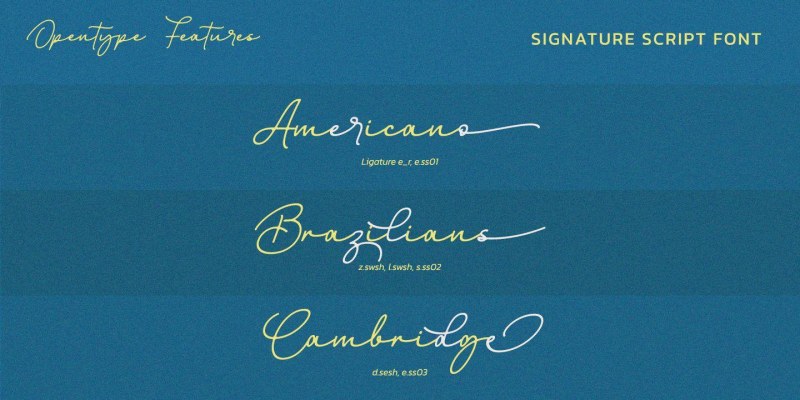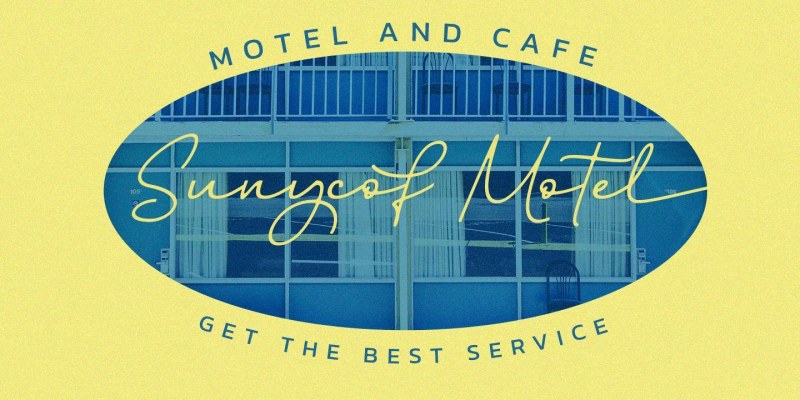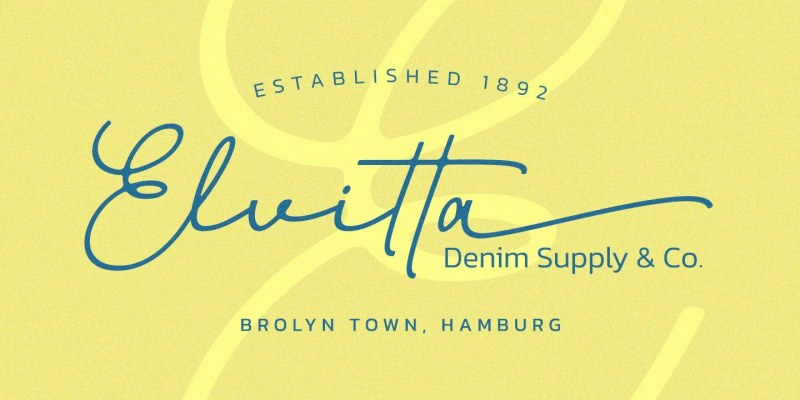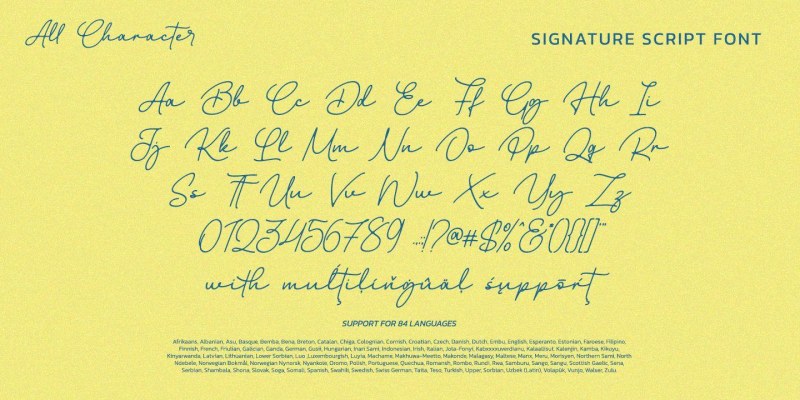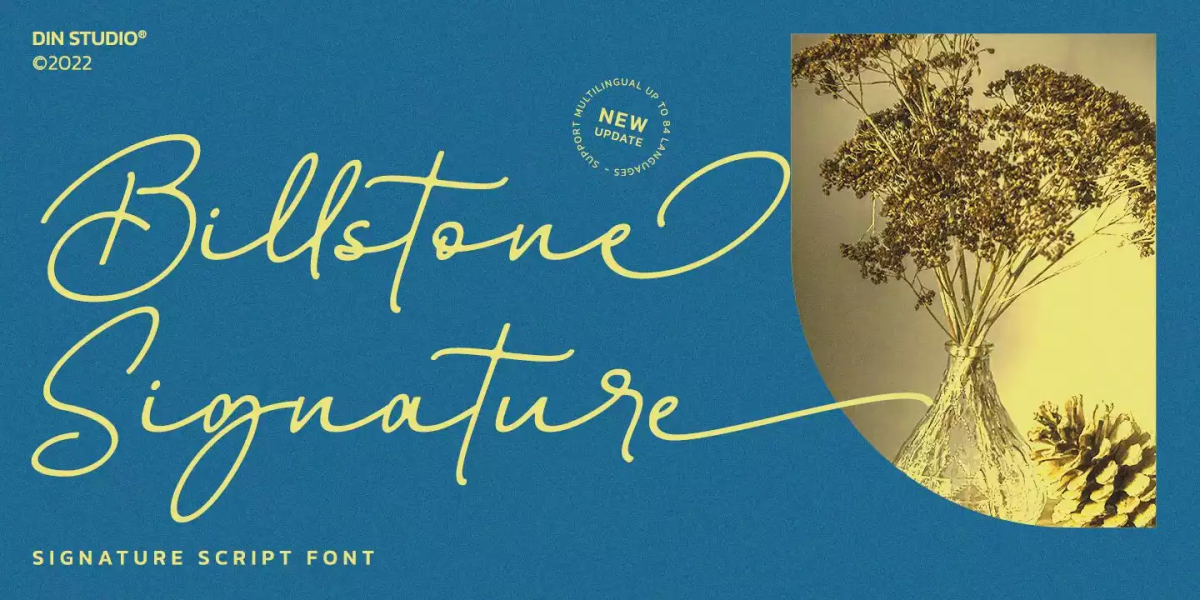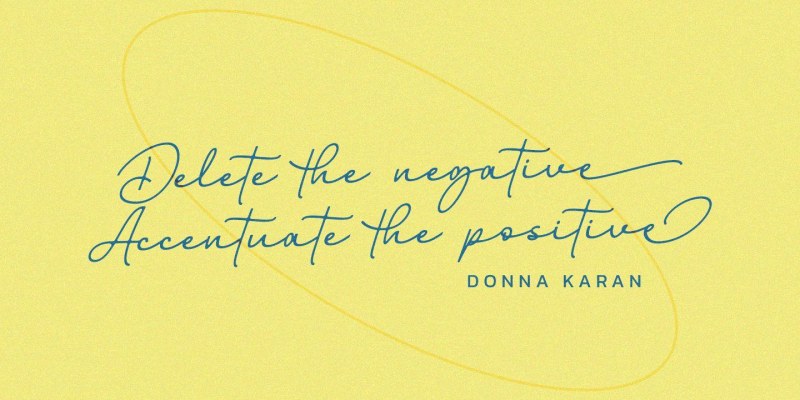
Billstone Signature Font
Billstone Signatture is a soft and sweet signature typeface, with characters dancing along the baseline. Designed primarily as a captivating font that has a casual and e…
Billstone Signatture is a soft and sweet signature typeface, with characters dancing along the baseline. Designed primarily as a captivating font that has a casual and elegant touch. Can be used for various purposes such as logos, wedding invitations, headings, t-shirts, letterheads, signage, labels, news, posters, badges etc
Where Billstone Signature Font works best
Billstone Signature Font brings a personal, handwritten warmth to invitations, menus and place cards.
Craft brands — coffee, cosmetics, bakery — use scripts like Billstone Signature Font for signature-style logos and labels.
Pair Billstone Signature Font with a plain sans for quotes, stories and Pinterest pins that feel handmade.
What is Billstone Signature Font good for?
Billstone Signature Font is a Script And Handwritten typeface tagged Branding, Elegant, Free, Packaging. It works well for headlines, logos, posters, social media graphics and branding projects that need a distinctive script and handwritten look.